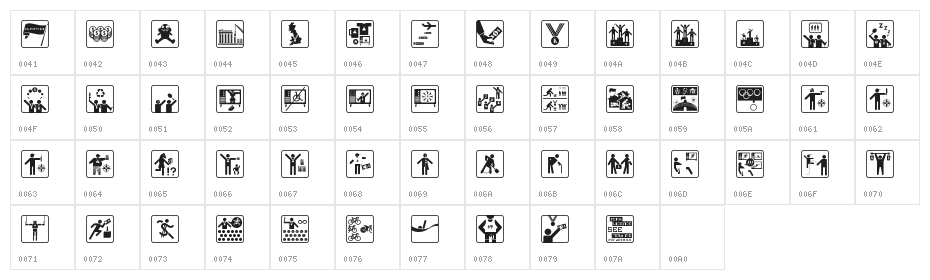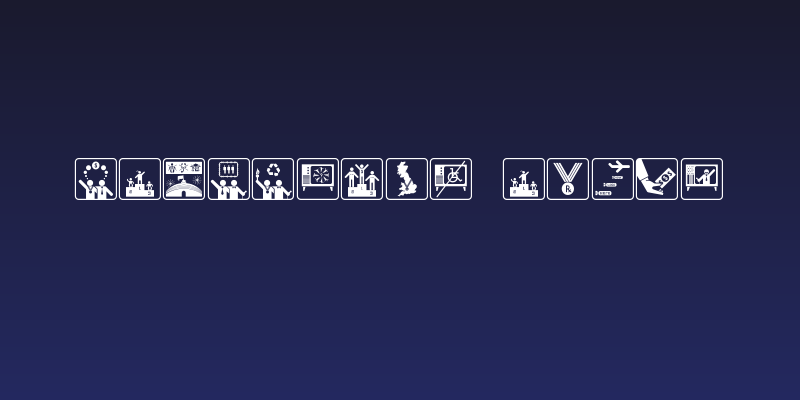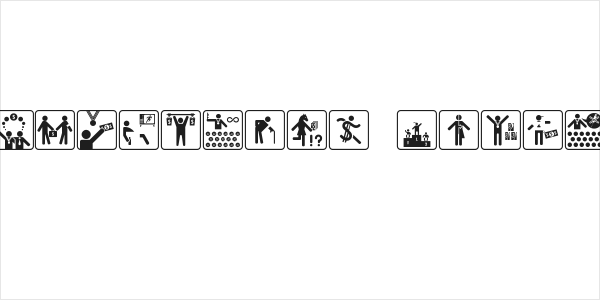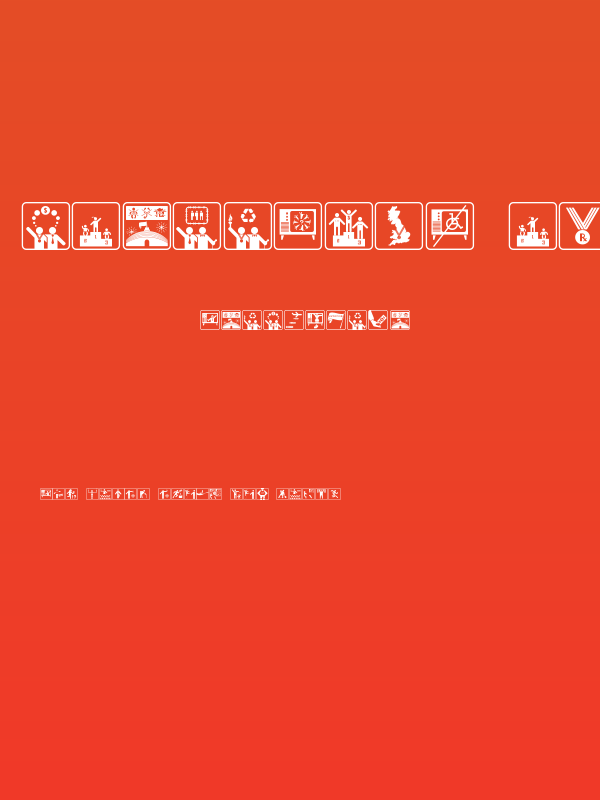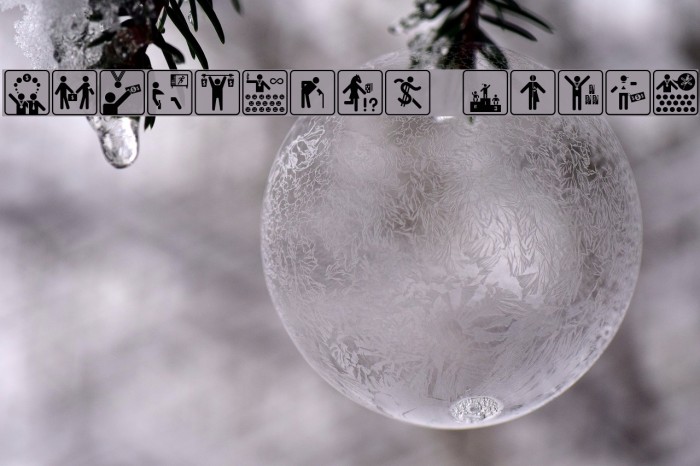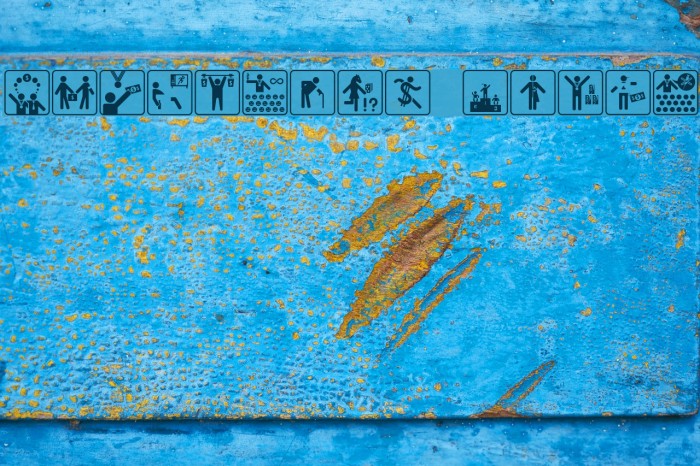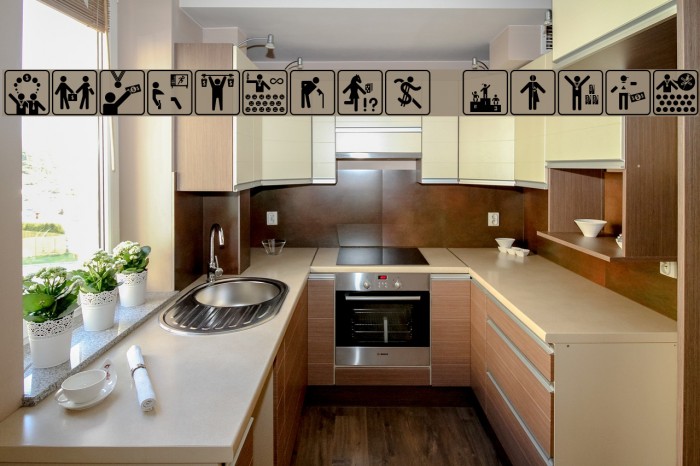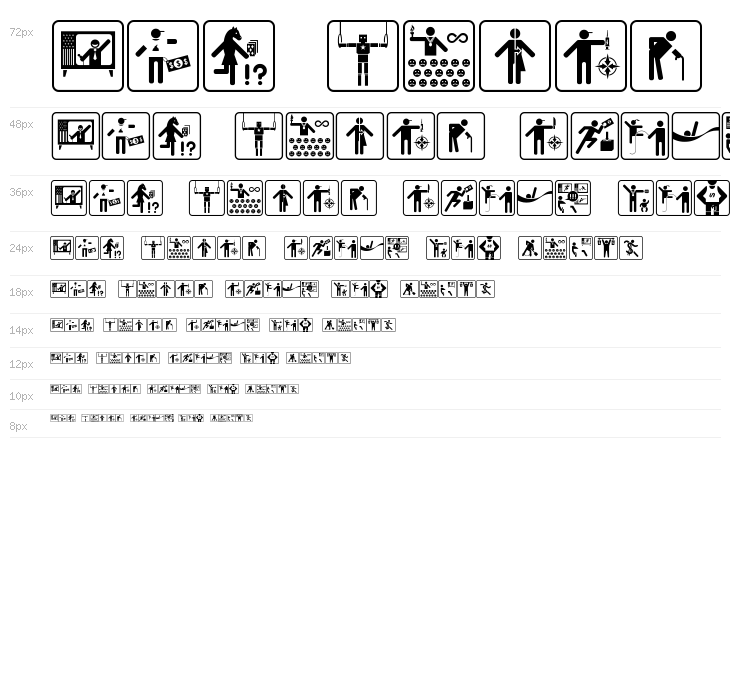
Olympukes Light Font
Olympukes Light Description
This is a decorative font featuring a series of pictograms and symbols inspired by various activities and themes. Each character is enclosed in a square, providing a consistent and structured appearance. The symbols include a mix of sports, leisure, and everyday activities, depicted in a playful and humorous style. The design is bold and clear, making it suitable for projects that require a fun and engaging visual element. The characters are evenly spaced within their squares, ensuring uniformity across the set. The overall style is modern and whimsical, with a focus on entertainment and creativity.
| Overall Style | Modern, Whimsical |
| Use Case | Logos, Posters, Educational Materials |
| Proposed Projects | Ideal for event posters, playful branding, educational materials, or any project needing a humorous touch. |